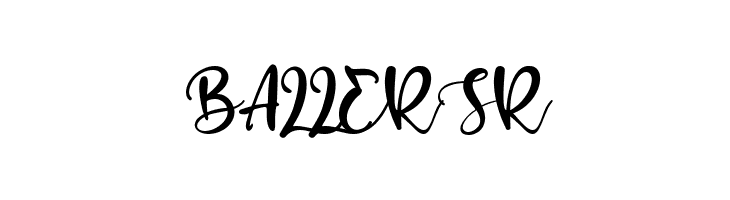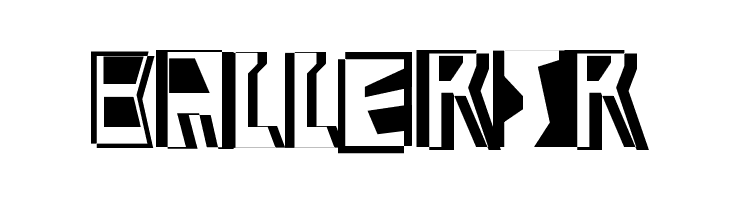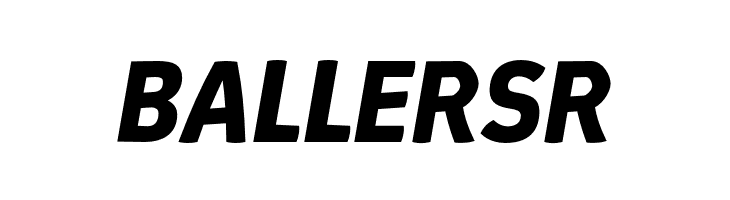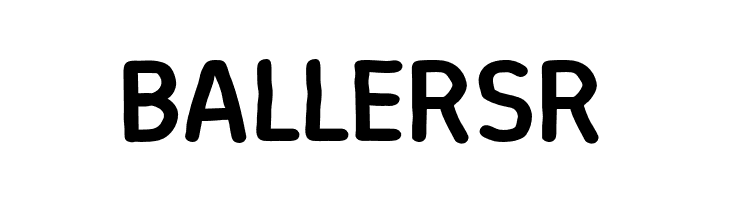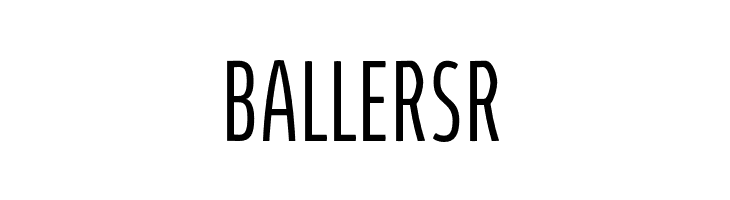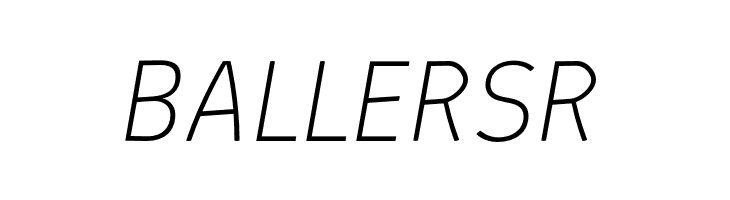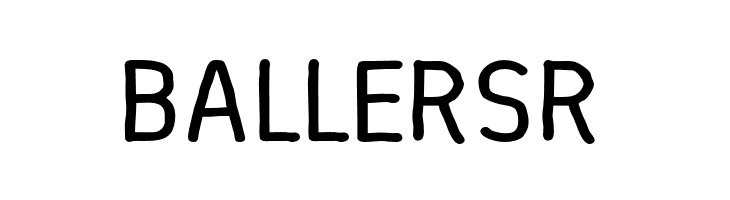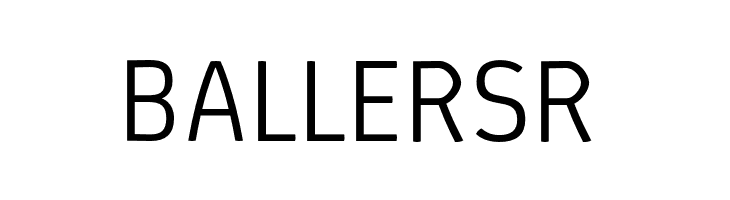
• AbsolutRed-BlackItalic
Bold, italicized font with a strong, modern presence.
• AbsolutRed-Bold
A bold, modern font with rounded edges and consistent stroke width.
• AbsolutRed-BoldItalic
A bold, italic font with smooth curves and a dynamic style.
• AbsolutRed-Book
• AbsolutRed-Fat
A bold, blocky font with rounded edges and a strong, impactful presence.
• AbsolutRed-FatHead
A bold, rounded font with thick, uniform letterforms ideal for impactful headlines.
• AbsolutRed-Italic
A modern, italic sans-serif font with a sleek and dynamic appearance.
• AbsolutRed-Light
• AbsolutRed-LightItalic
A sleek, modern, light italic font with low contrast and condensed spacing.
• AbsolutRed-Medium
A modern, medium-weight sans-serif font with a clean and professional appearance.
• AbsolutRed-MediumItalic
A modern, italic sans-serif font with smooth curves and consistent stroke width.
• AbsolutRed-Thin
A sleek, modern font with thin, clean lines and a minimalist aesthetic.
• AbsolutRed-ThinItalic
A sleek, thin italic font with a modern and dynamic style.
• AbsolutSketchRed-Bold
A bold, playful font with rounded edges and a hand-drawn look.
• AbsolutSketchRed-Book
A playful, hand-drawn font with a sketch-like, casual style.
• AbsolutSketchRed-Light
A hand-drawn, sketch-style font with an artistic and informal appearance.
• AbsolutSketchRed-Medium
A playful, hand-drawn font with rounded edges and consistent stroke width.
• AbsolutSketchRed-Thin
A hand-drawn, sketch-like font with thin, irregular strokes for a casual, artistic feel.
• Absolutte
A playful and elegant cursive font with a handwritten feel.
• Absolutte
A lively and expressive script font with elegant, flowing cursive letters.
• AbsolutUltraCondensedRed-Bold
• ABSTEMIOUS
A distressed, grunge-style font with a bold, weathered appearance.